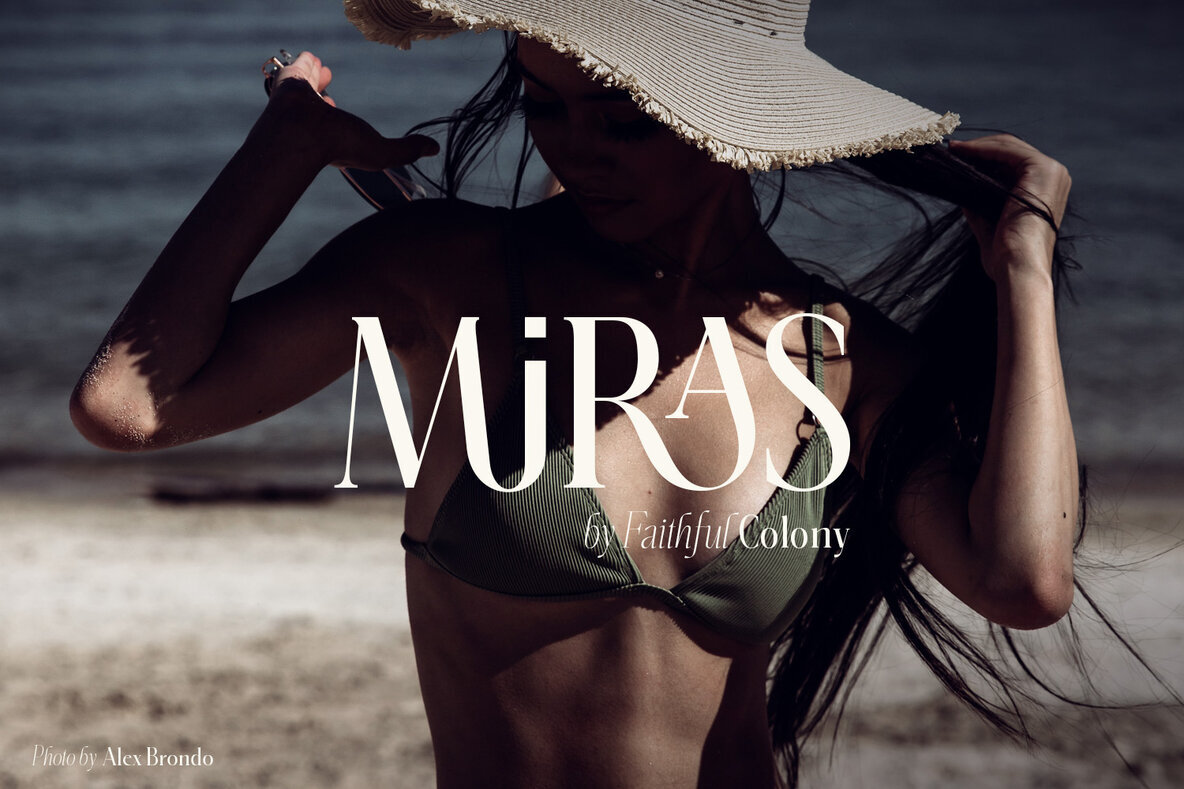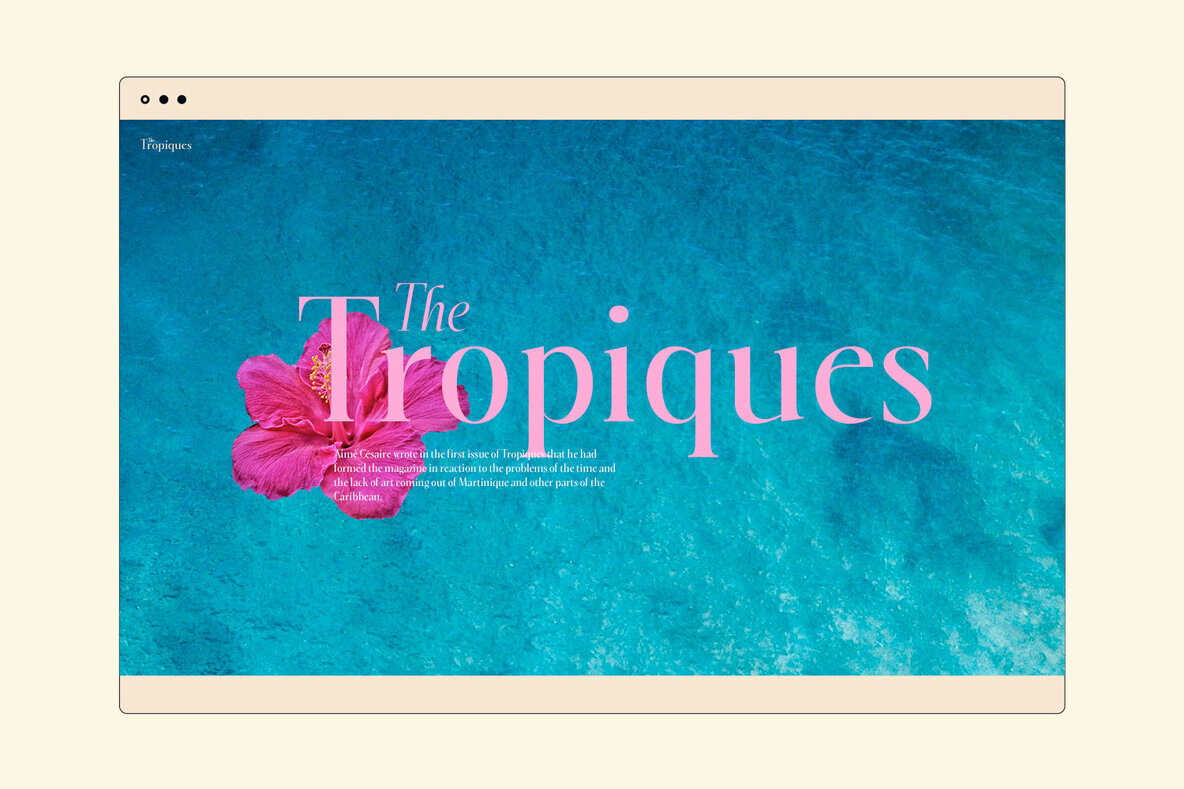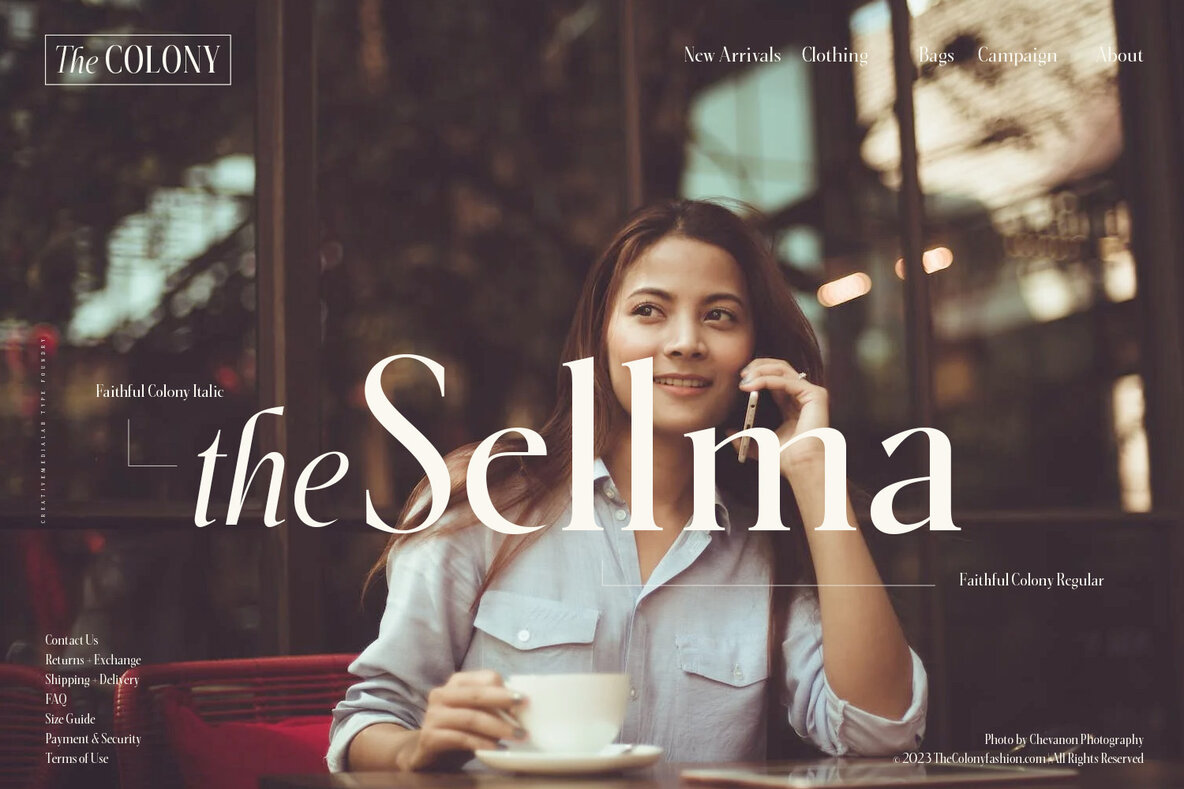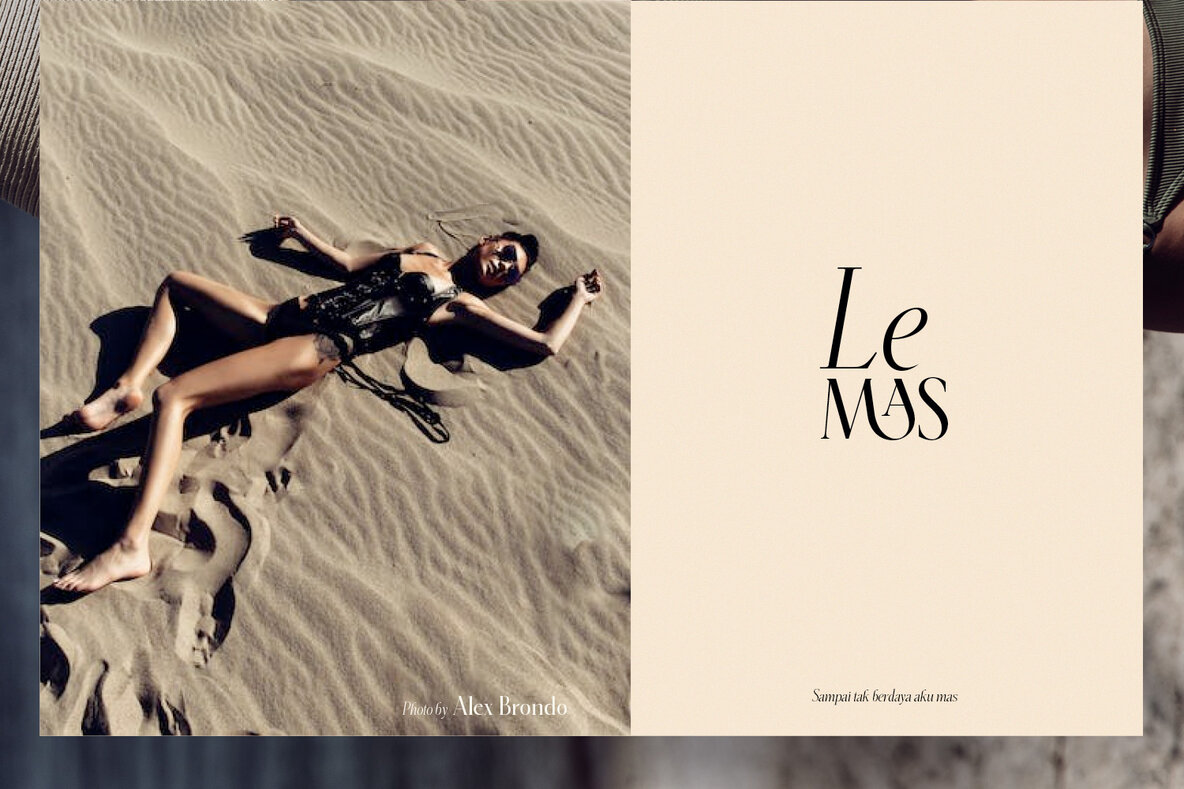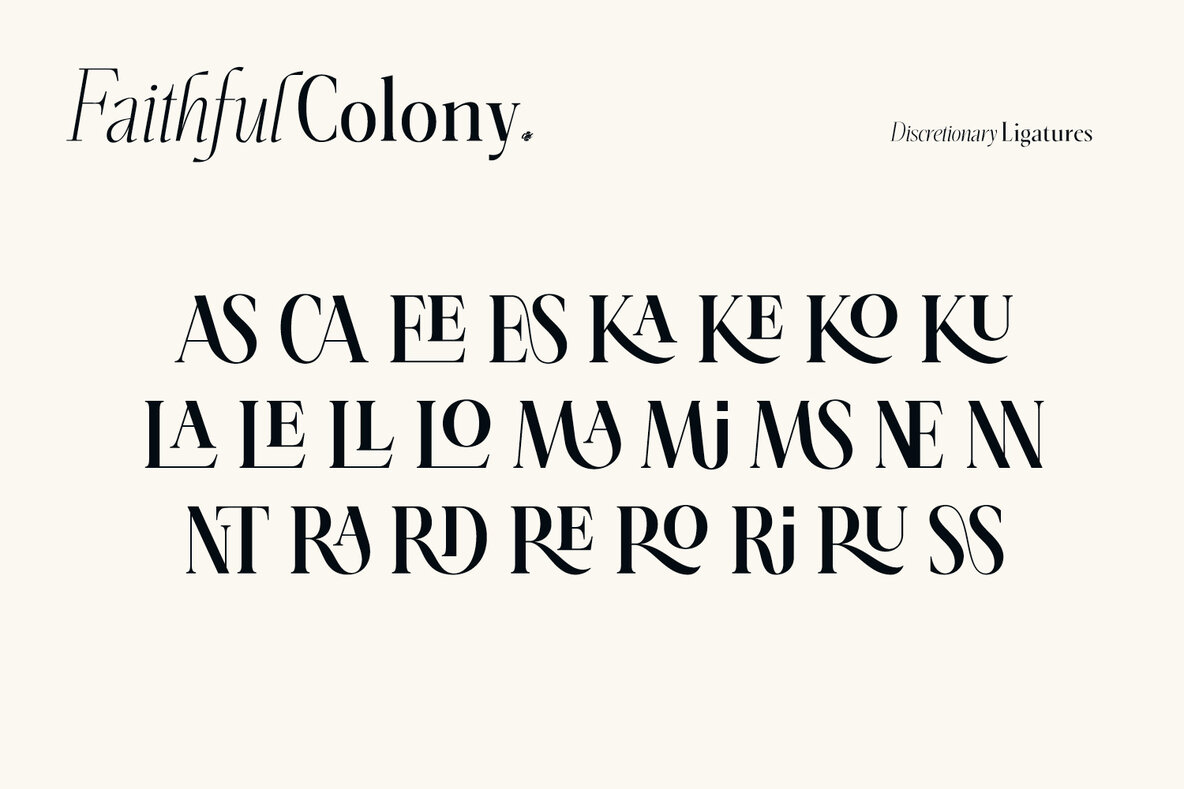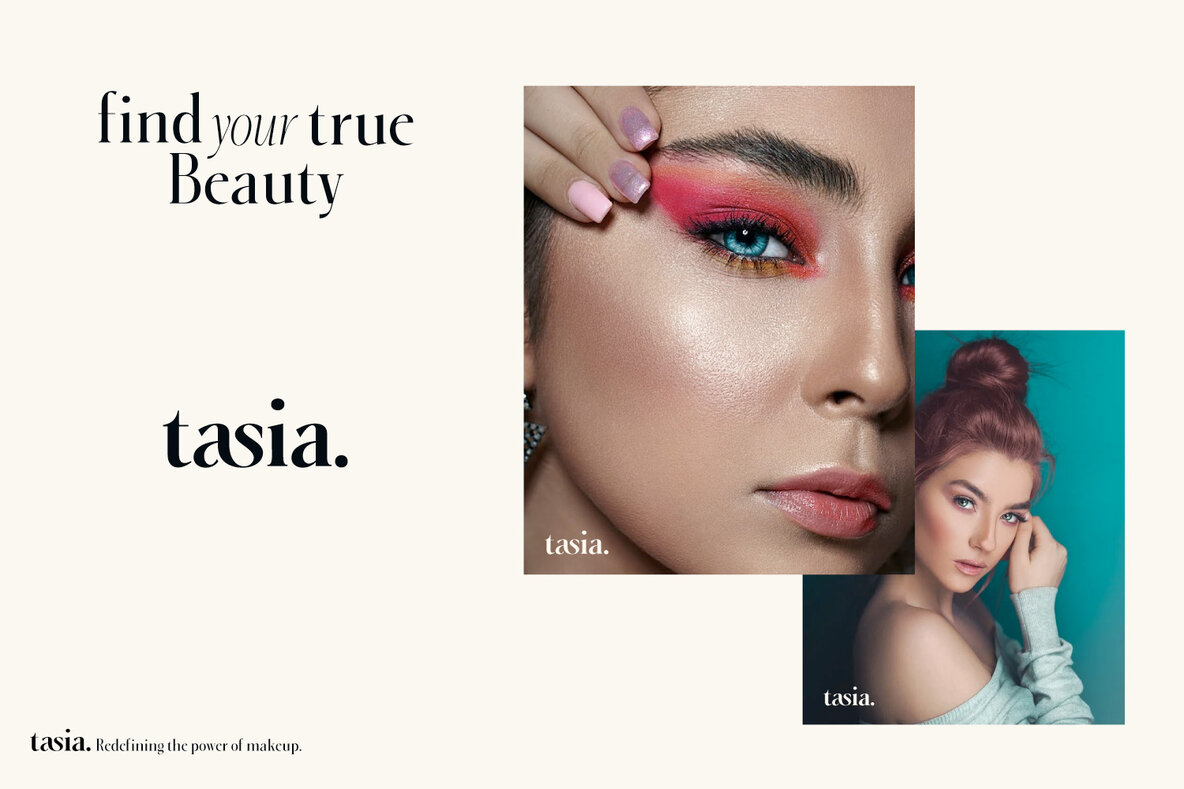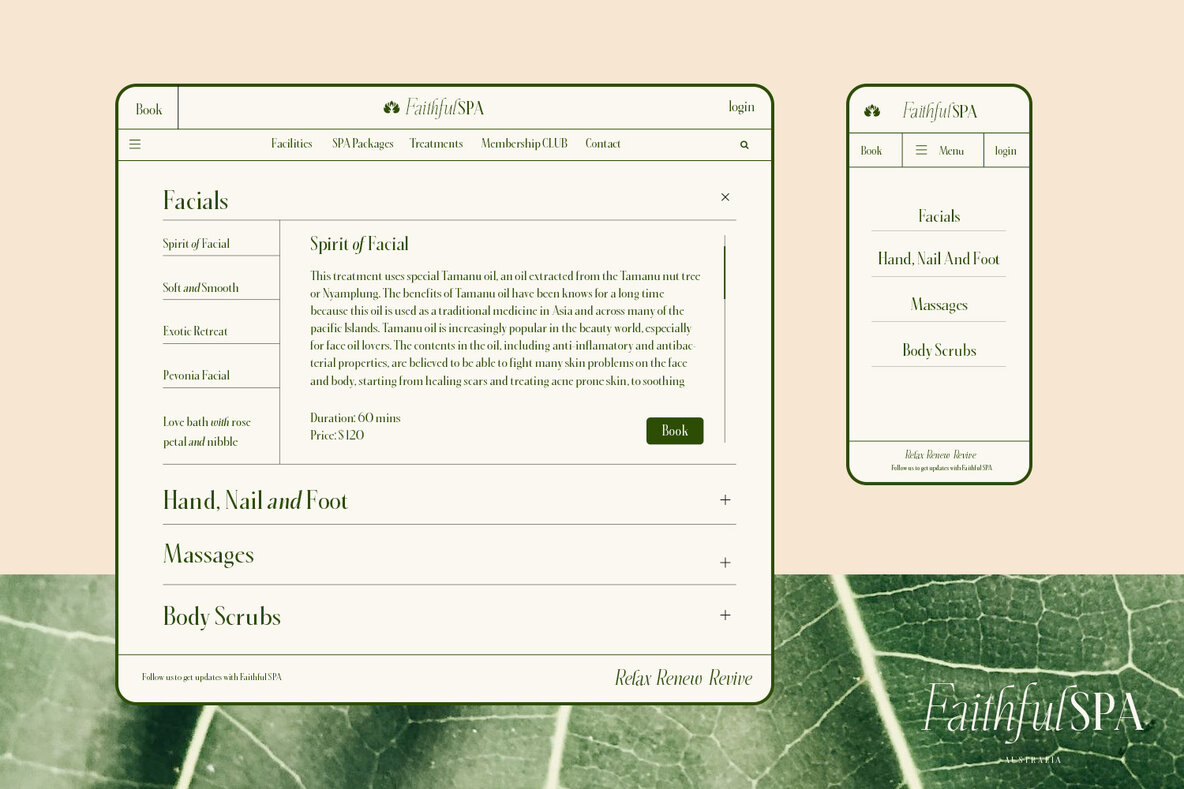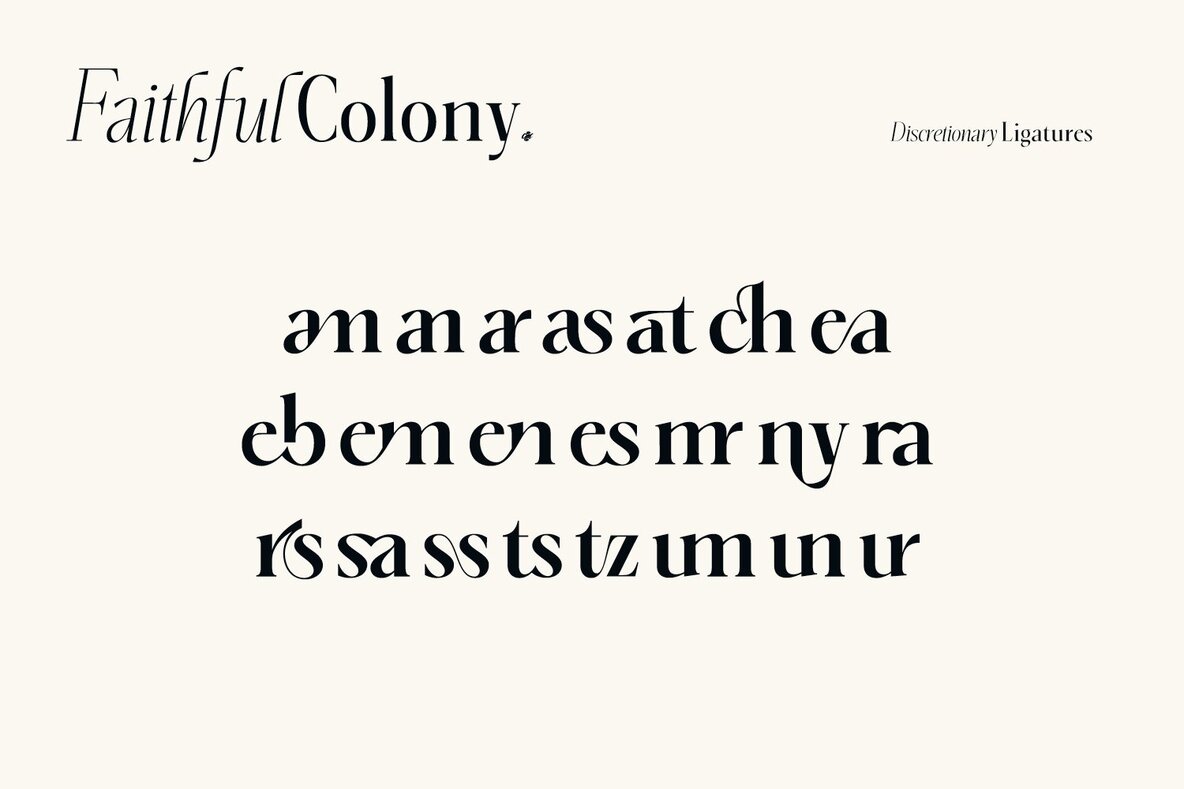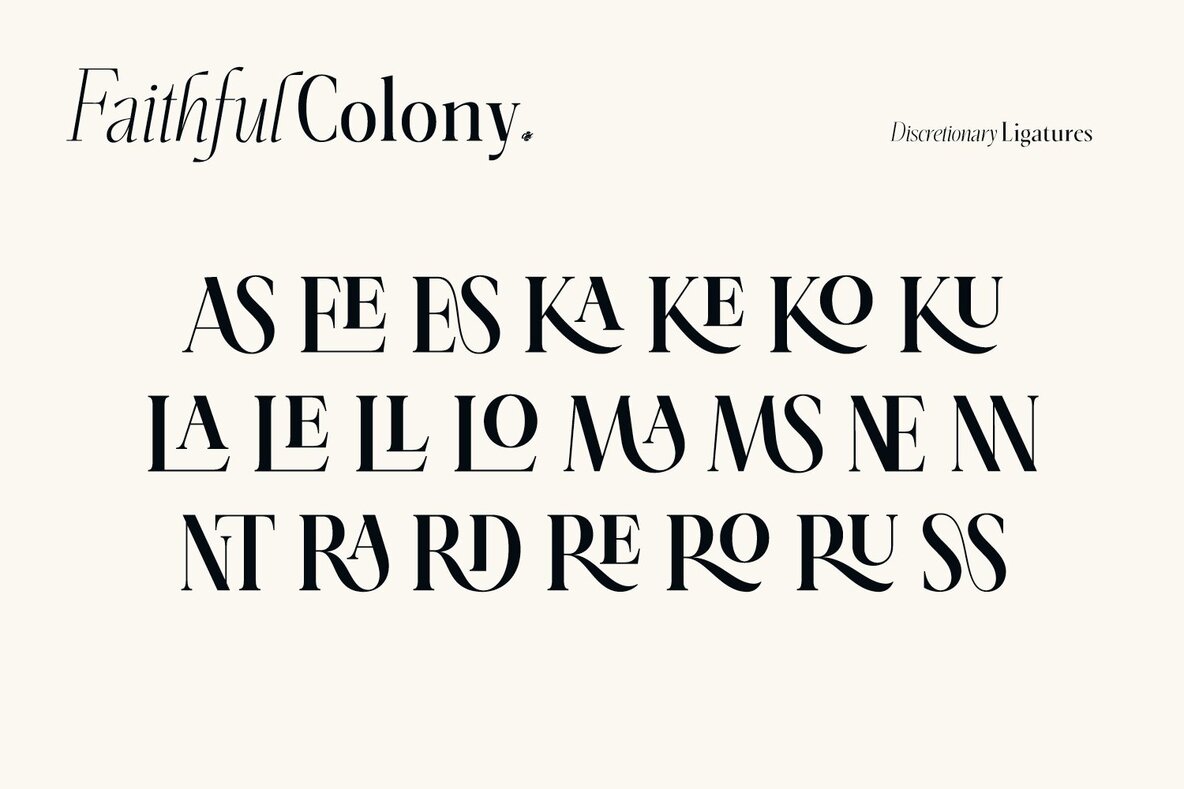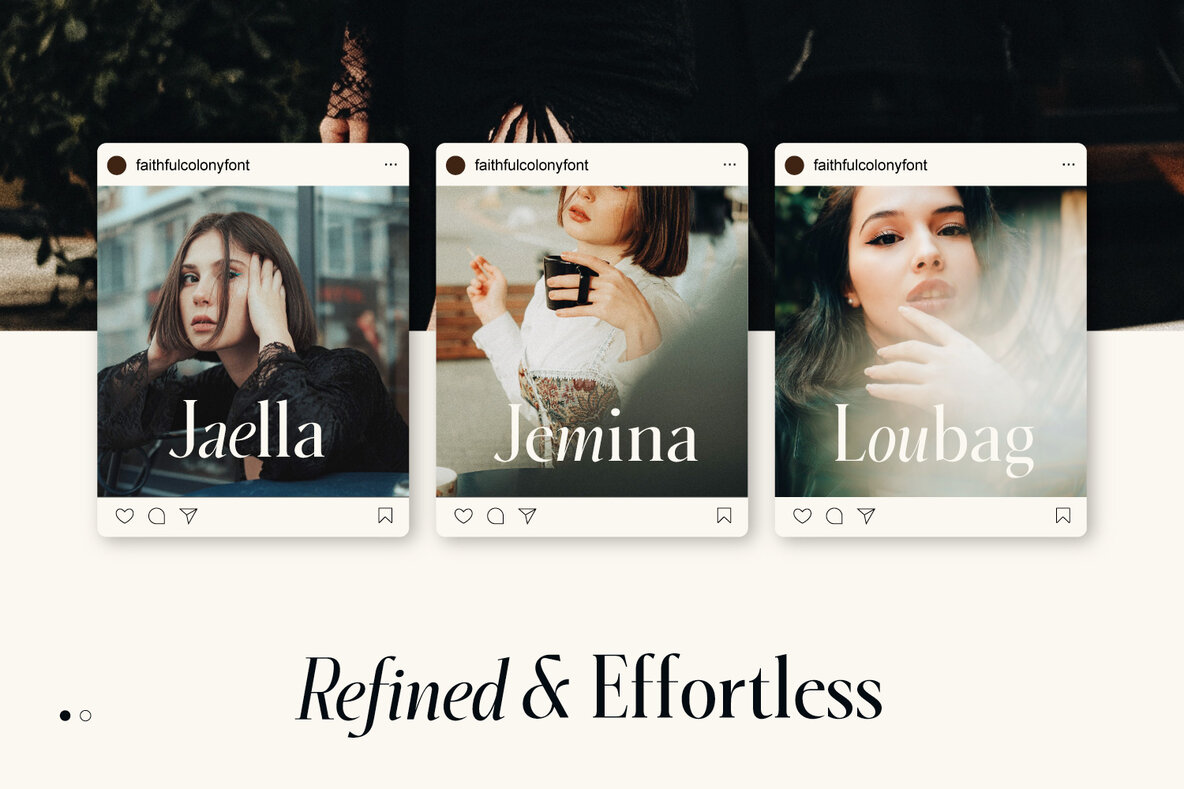
Faithful Colony Font
Faithful Colony, a timeless and classic font that brings a touch of sophistication to your designs. With its modern and elegant look, this font is perfect for fashion, luxury, high-end branding, logos, and more.
Faithful Colony comes in seven weights, ranging from thin to black, with matching italics and a variable format, providing you with endless possibilities for creating a unique and stylish look.
Try combining the regular and italic styles for a modern and elegant look that will make your designs stand out. Faithful Colony is perfect for fashion-related concepts, classy and high-end branding, logos, and more.
Upgrade your designs today with the timeless and elegant Faithful Colony typeface.